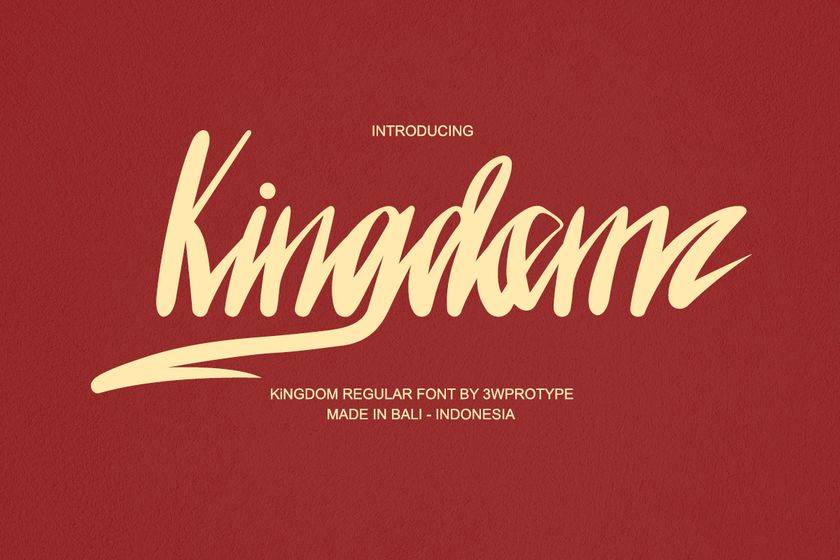
Kingdom Font is a stylish, handwritten script with an energetic and modern feel, featuring smooth, flowing lines and slightly condensed letterforms. Its lively strokes and casual elegance make it perfect for branding, invitations, and creative projects that seek a personal and dynamic touch. This font works especially well for headlines or logos where a bold, expressive personality is desired.
Kingdom Font
About Kingdom Font
| Font family | Kingdom Font |
| Designer | i wayan wisna wijaya |